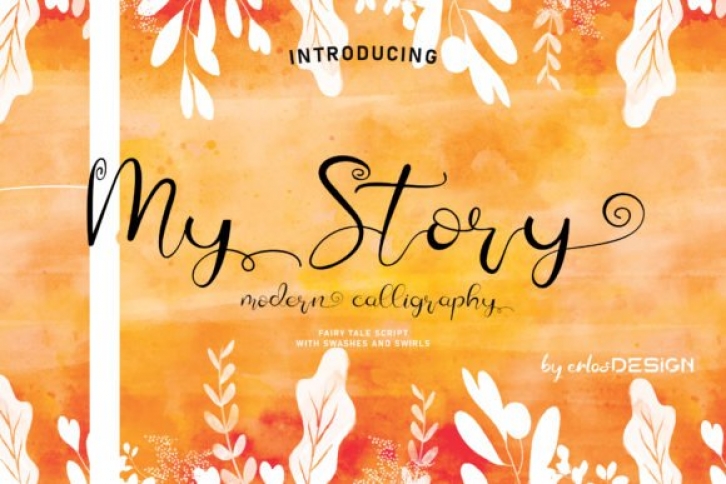
My Story is a modern calligraphy script, with a smooth line, dancing baseline, and elegant touch. It can be used for various purposes such as headings, signature, logos, wedding invitation, t-shirt, letterhead, signage, news, posters, badges and much more.